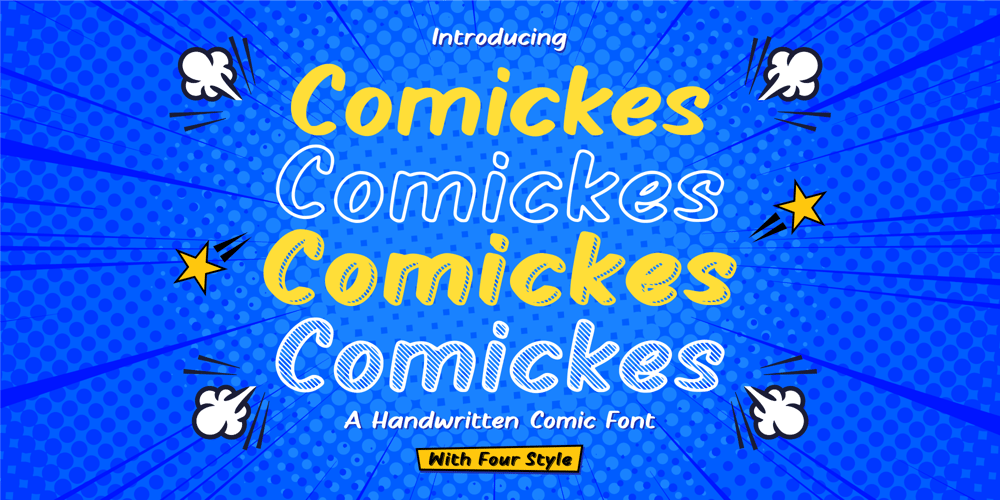
Comickes
Comickes font
Comickes Font Family was designed by Fachrizal Yusuf and published by Allouse Studio. Comickes contains 4 styles and family package options. Proudly Presenting, Comickes A Handwritten Comic Font with 4 Styles.Comickes is perfect for any titles, logo, product packaging, branding project, megazine, social media, wedding, or just used to express words above the background.Comickes also come with Multi-Lingual Support.Enjoy the font, feel free to comment or feedback, send me PM or email. Thank You!